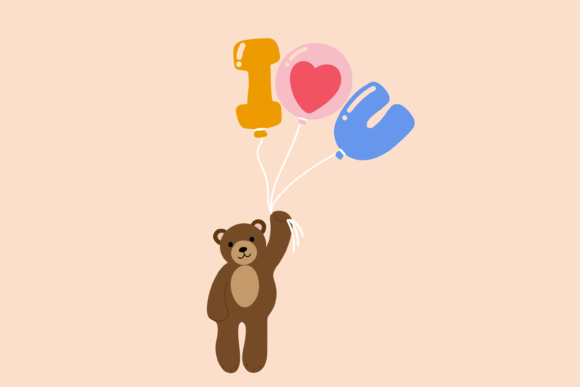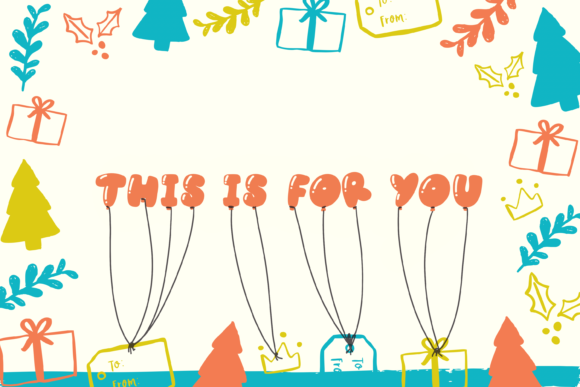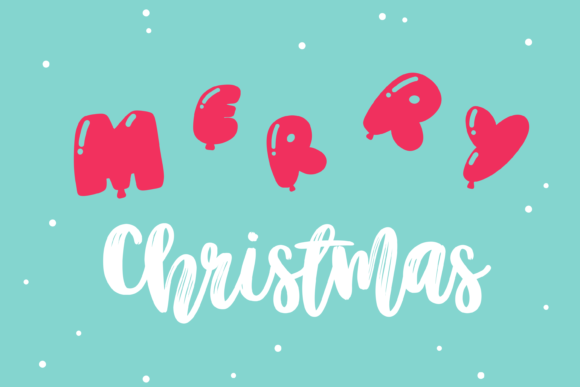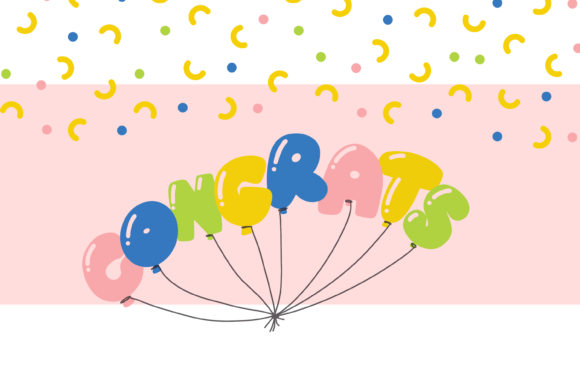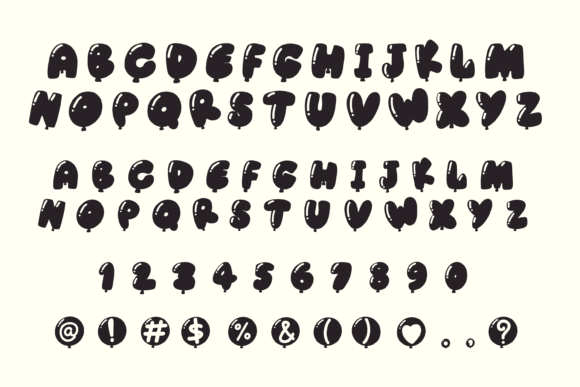
The Joy of Floating Font: A Playful Display Font for Creative Projects
I’ll never forget the time I was working on a children’s activity book and struggling to find the perfect font. The project required something fun, bubbly, and engaging, but everything I tried seemed either too boring or too over-the-top. That’s when I stumbled upon Floating Font, a cool and playful display font that embodies the perfect blend of playfulness and authenticity. In this article, I’ll share my experience with Floating Font, its features, and how to make the most of it in your creative projects.
An Honest Review of Floating Font
- ✨ Its playful and bubbly personality makes it perfect for children’s activity books, school projects, and other creative endeavors.
- ✅ The font is highly legible, even at larger sizes, making it ideal for headings and titles.
- 💡 The OpenType features and glyphs offer a wide range of creative possibilities.
While Floating Font is an excellent choice for many projects, there are a few things to keep in mind:
- ⚠️ The font may not be suitable for body text or smaller sizes, as it can become difficult to read.
- 🤔 Some characters, like the lowercase letters, can be a bit quirky and may require manual adjustments for optimal spacing.
The Design Story Behind Floating Font
Floating Font was designed with playfulness and creativity in mind. The font’s creator wanted to craft a font that would inspire imagination and bring a sense of joy to design projects. With its bubbly personality and authentic feel, Floating Font is the perfect choice for children’s activity books, school projects, and other creative endeavors.
| Font Name | Floating Font |
| Author | Rasa |
Q: What type of projects is Floating Font best suited for?
A: Floating Font is perfect for children’s activity books, school projects, and other creative endeavors that require a playful and bubbly font.
Q: Is Floating Font suitable for body text?
A: No, Floating Font is best suited for headings and titles. It may not be suitable for body text or smaller sizes, as it can become difficult to read.